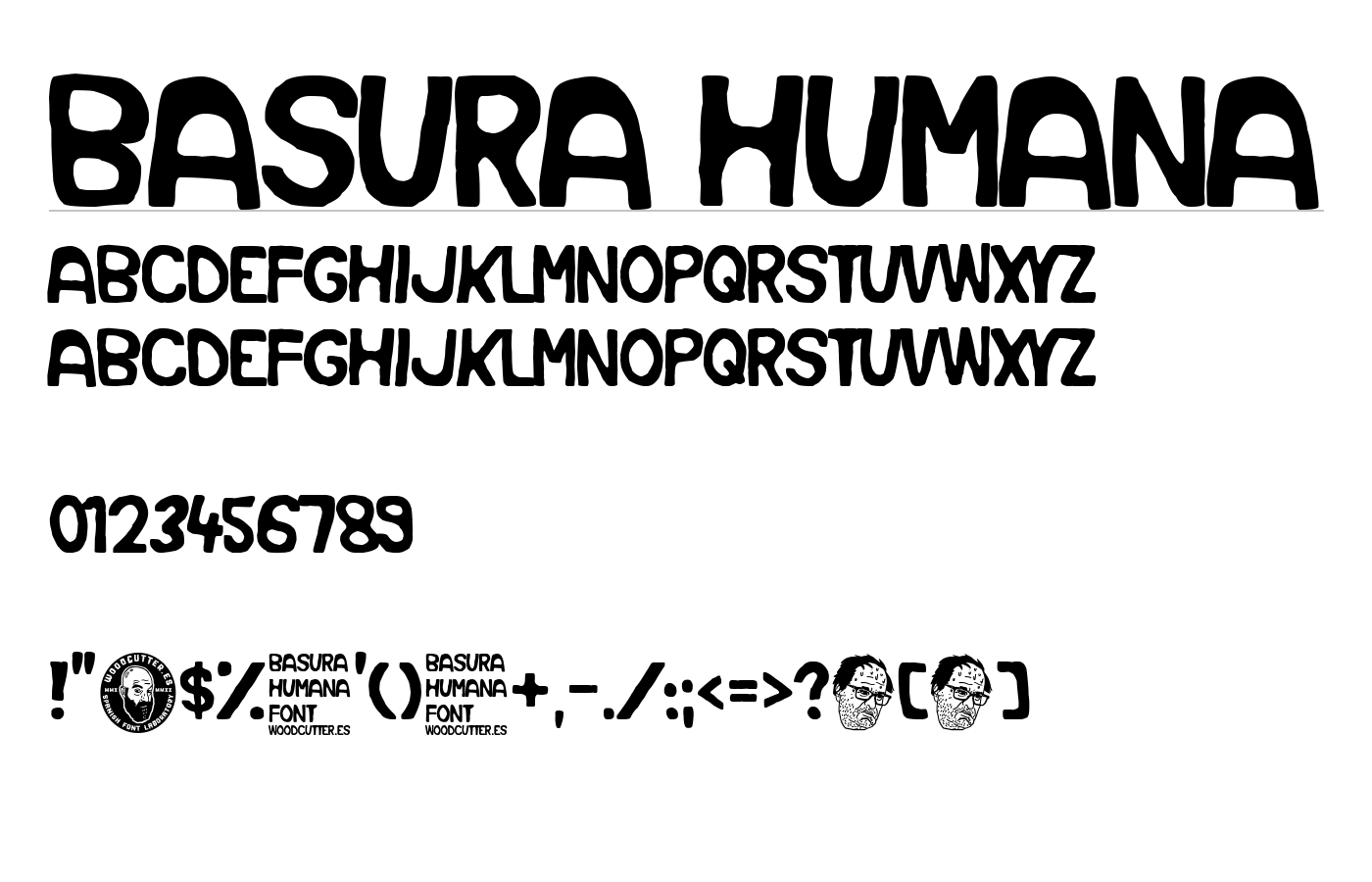
Basura Humana is a bold, playful sans serif font with a hand-drawn, slightly irregular style that gives it a quirky, informal personality. Its thick, uneven strokes and high x-height make it eye-catching and friendly, perfect for creative projects looking to add a raw, human touch. This font works well in headlines, posters, and branding where a fun, unconventional vibe is desired.
Basura Humana Font